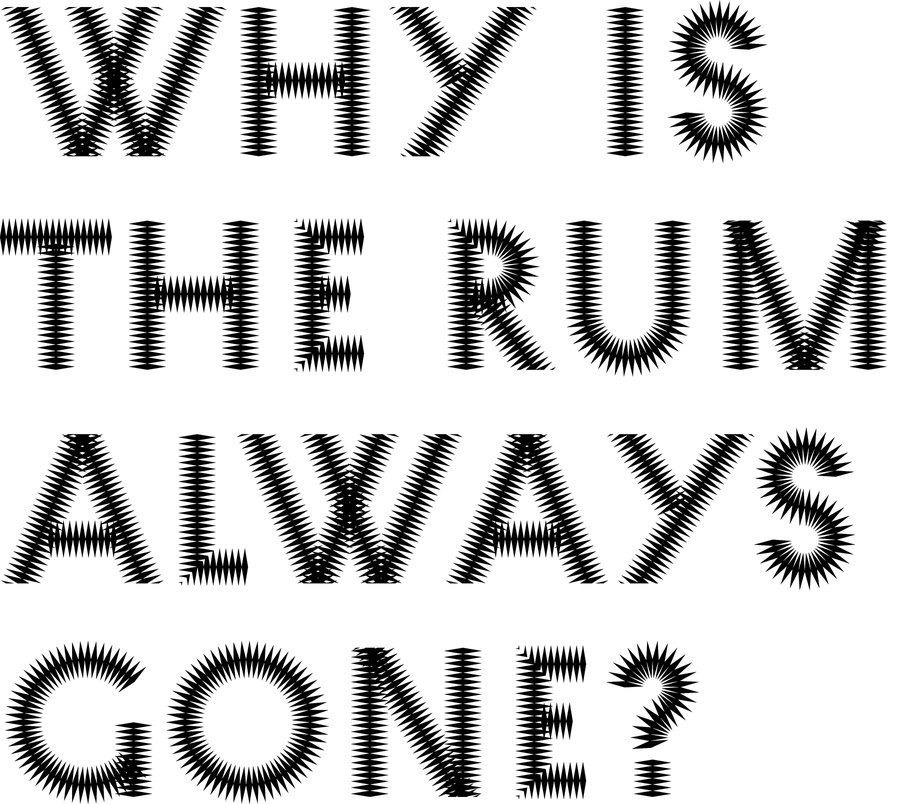
Download 1 spikey fonts for free at fontsov.com, the largest collection free spikey fonts for windows 7 and mac os in truetype(.ttf) and opentype(.otf) format. Spiky is an unusual font with spiky characters (which must come as a surprise) that provides a graphical solution where a monster, spooky or unusual typeface is required. The quick brown fox jumps over the lazy dog.
Enterprise solutions creative matters what’s. Spiky is an unusual font with spiky characters (which must come as a surprise) that provides a graphical solution where a monster, spooky or unusual typeface is required. Download more than 10,000 free fonts hassle free, desktop and mobile optimized, around for more than 20 years.
Spiky is font family that comes in regular and book version. Spiky is an unusual font with spiky characters (which must come as a surprise) that provides a graphical solution where a monster, spooky or unusual typeface is required. Categories, popular, designers, optional web.